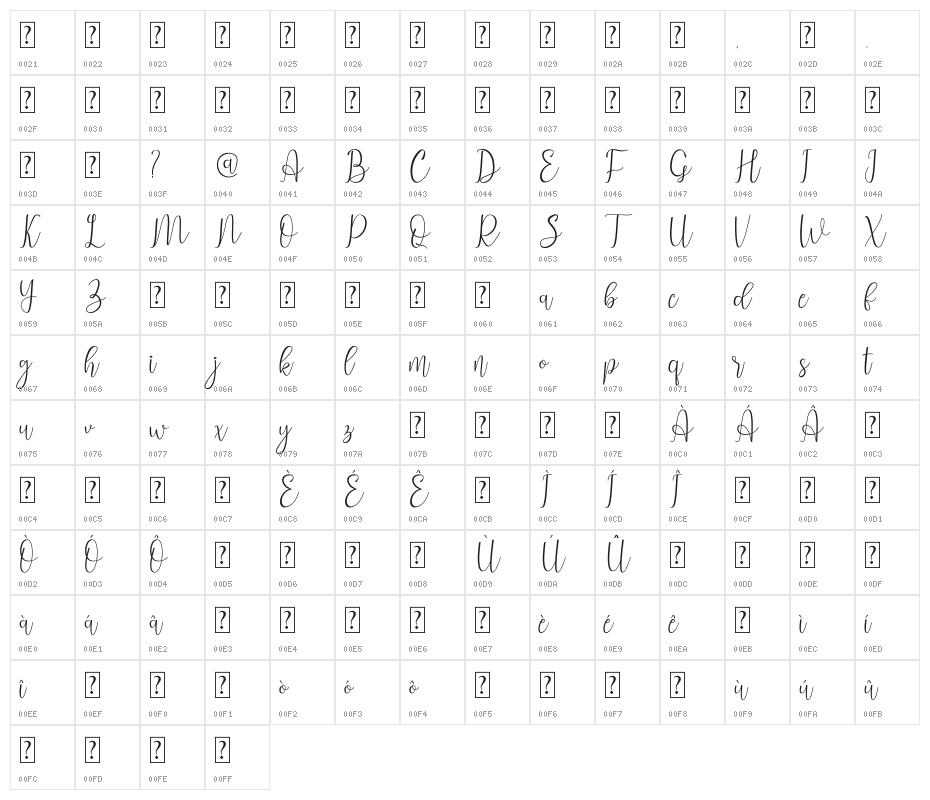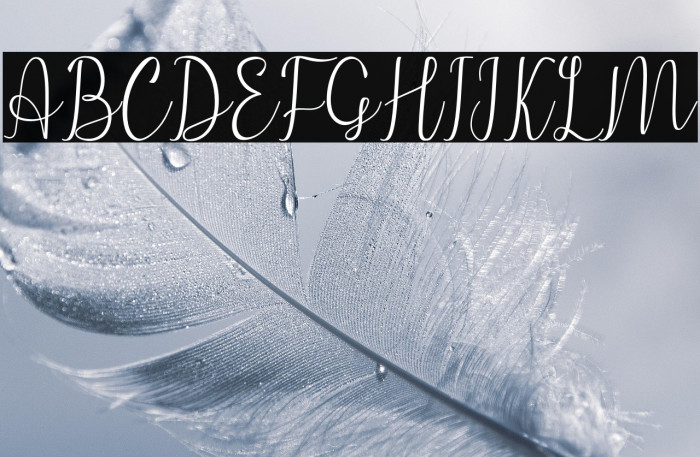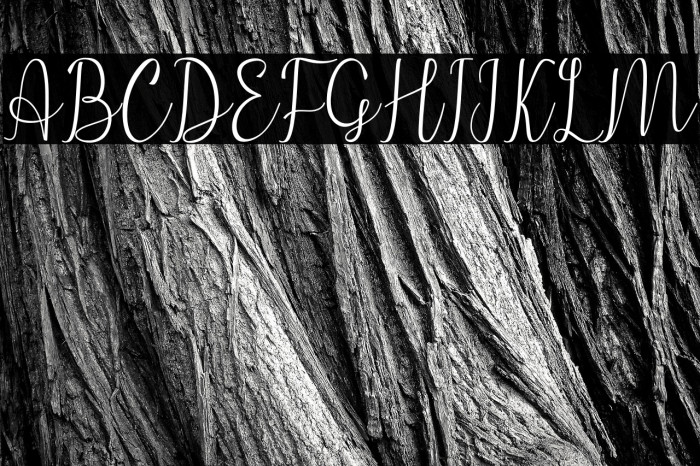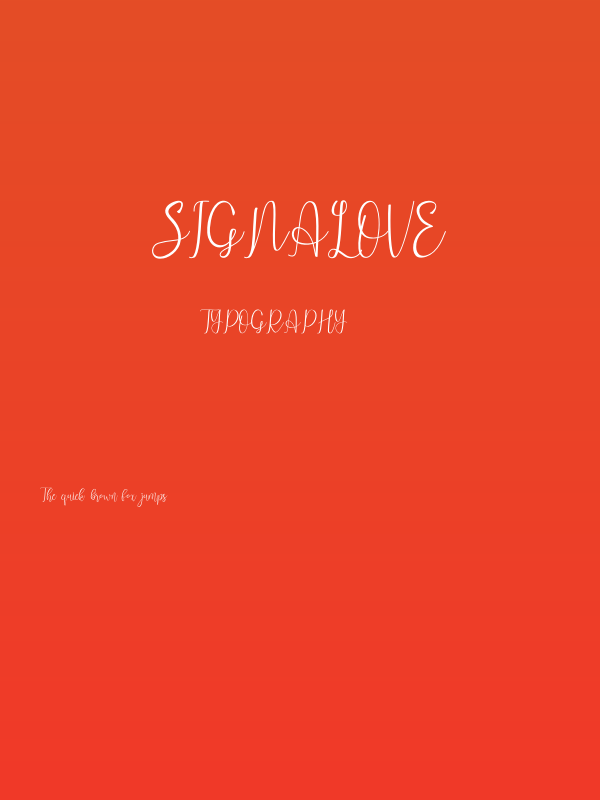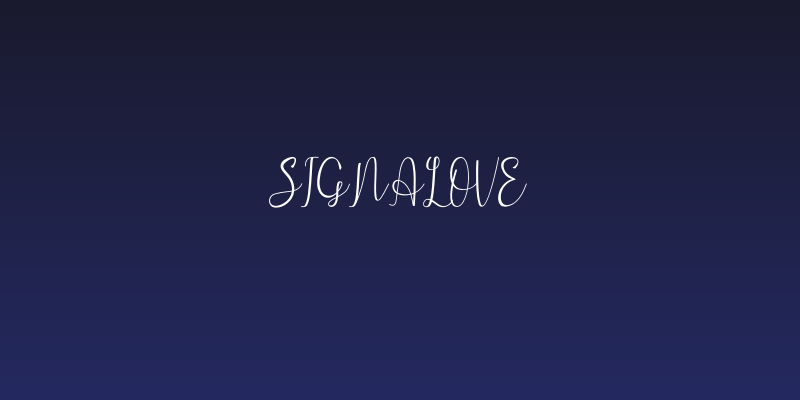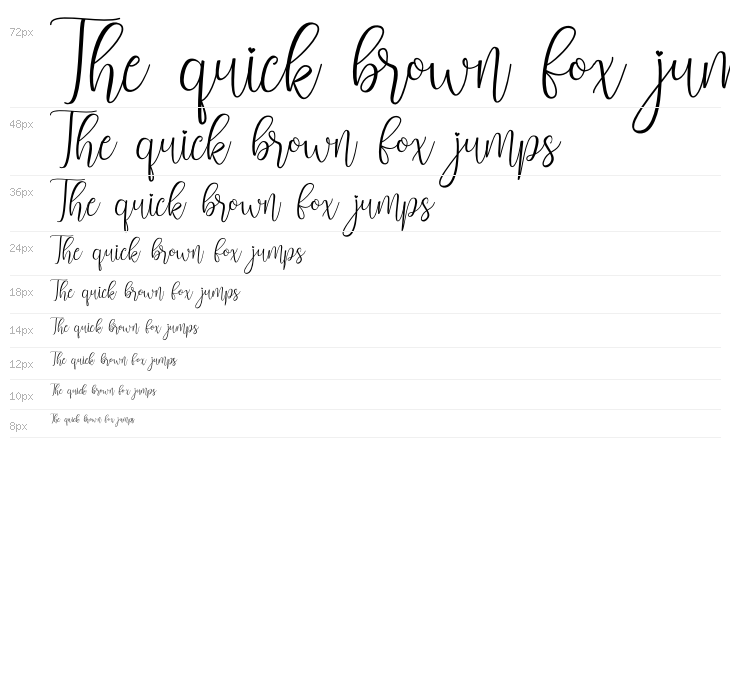
Signalove Font
Signalove Description
This font features an elegant, flowing script style that mimics the fluidity of handwriting. The uppercase letters are tall and slender with graceful curves, while the lowercase letters maintain a consistent flow with loops and swashes that add a touch of sophistication. The font is characterized by its smooth, continuous strokes and delicate appearance, making it ideal for creating a personal and inviting feel. The characters are well-spaced, ensuring readability while maintaining the artistic flair typical of script fonts. This font does not include numerical characters or standard punctuation, focusing solely on the alphabet.
| Overall Style | Elegant, Handwritten |
| Use Case | Logos, Invitations, Decorative text |
| Proposed Projects | Ideal for wedding invitations, greeting cards, personal branding, and decorative quotes. |